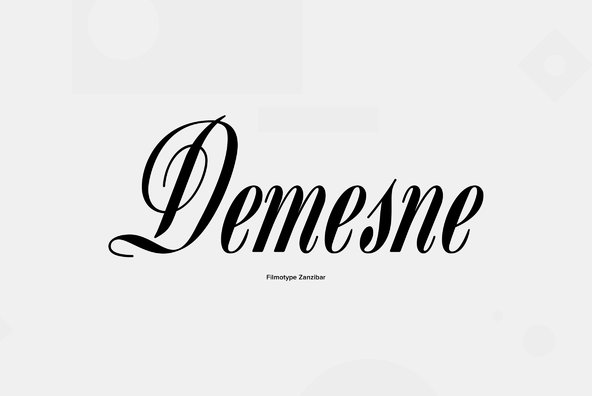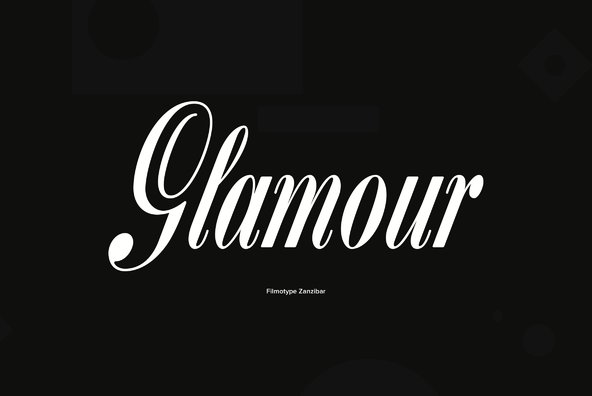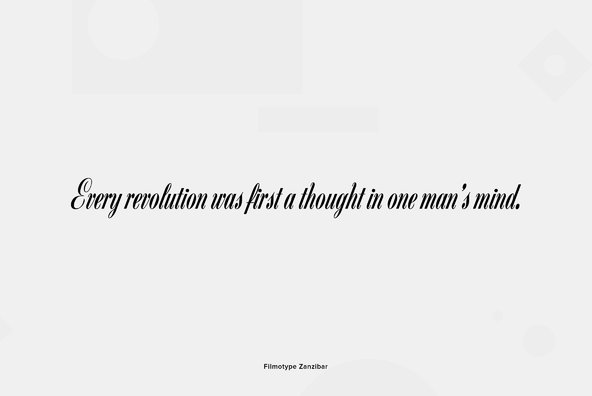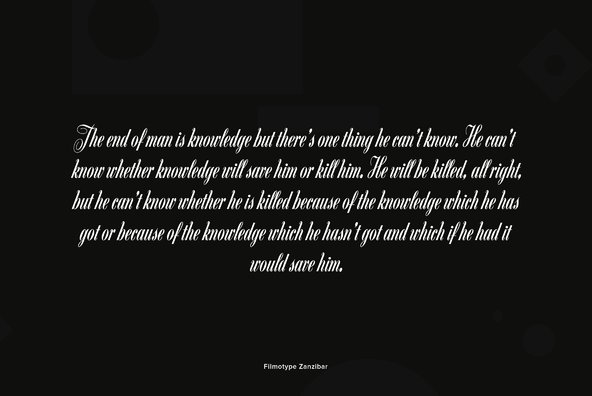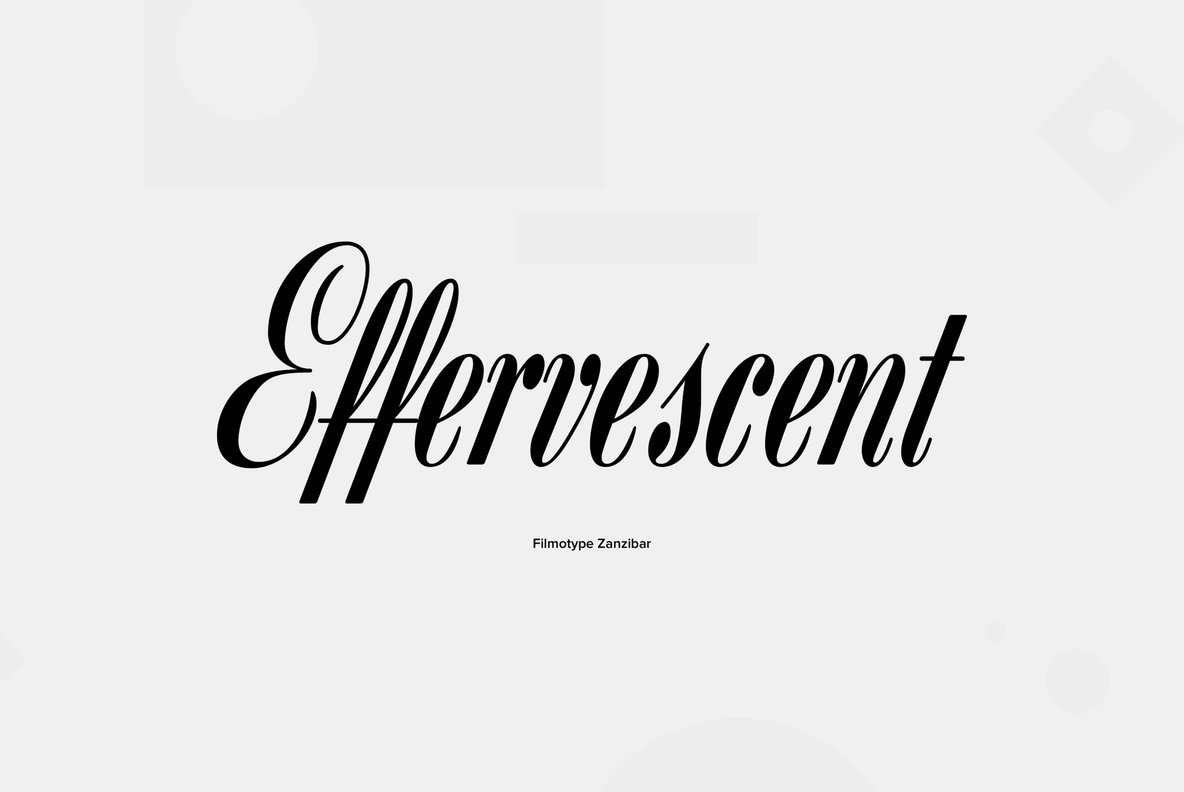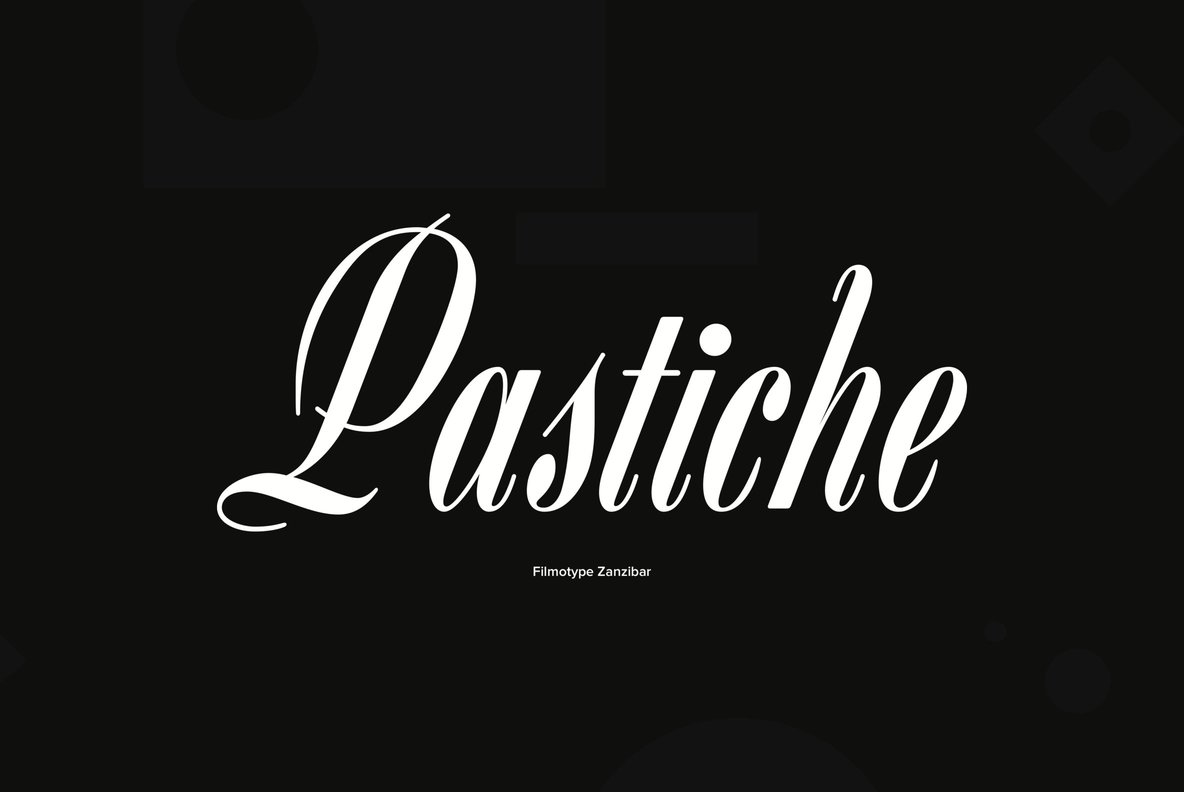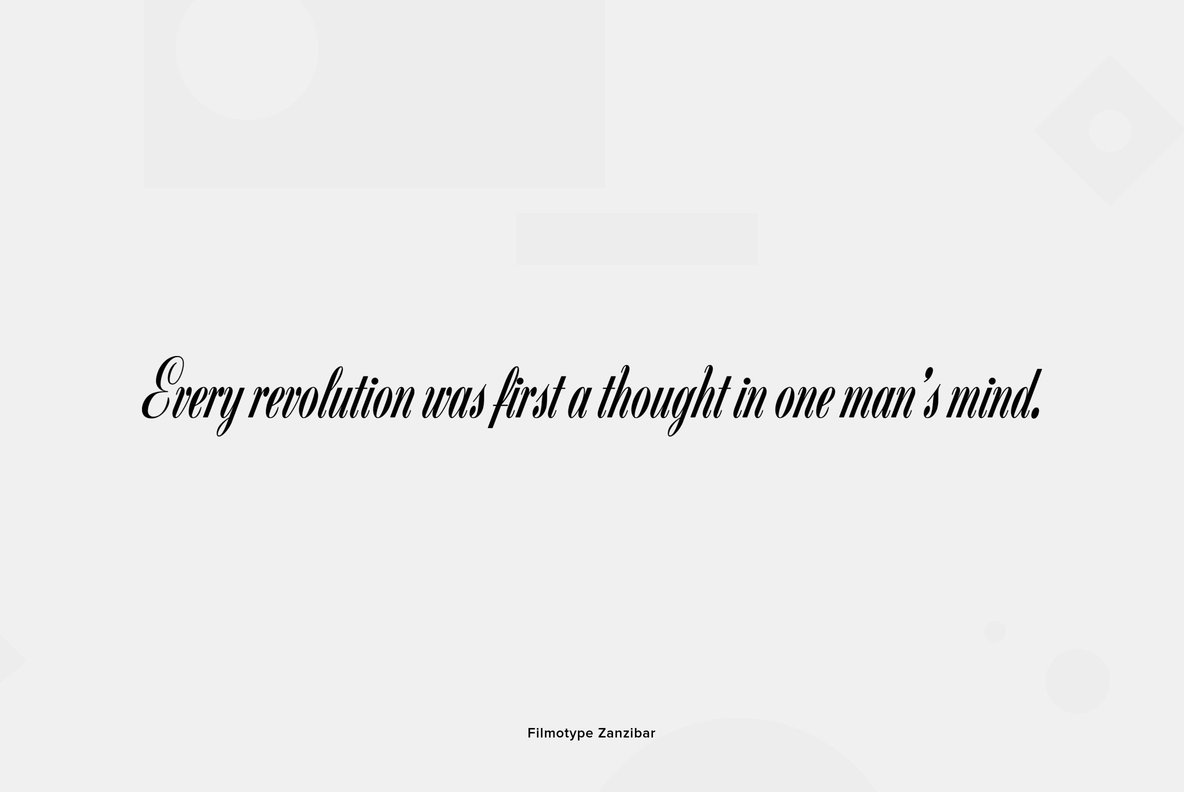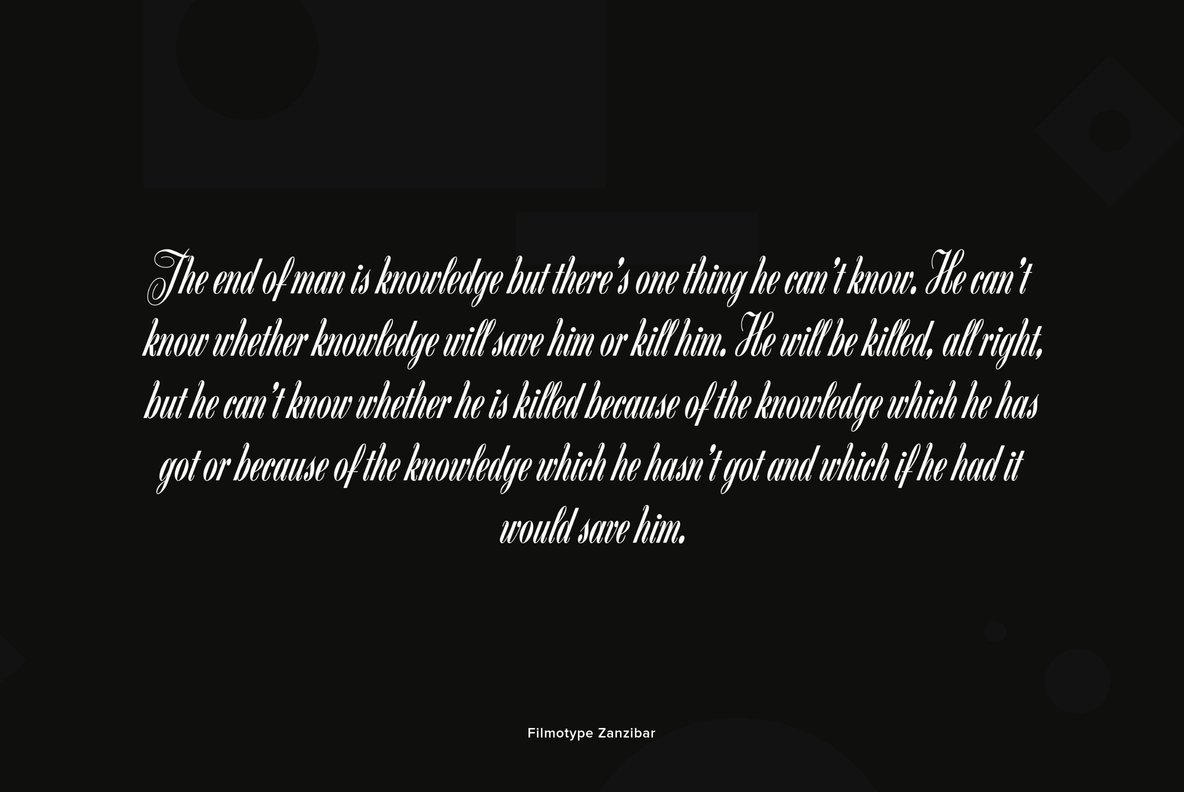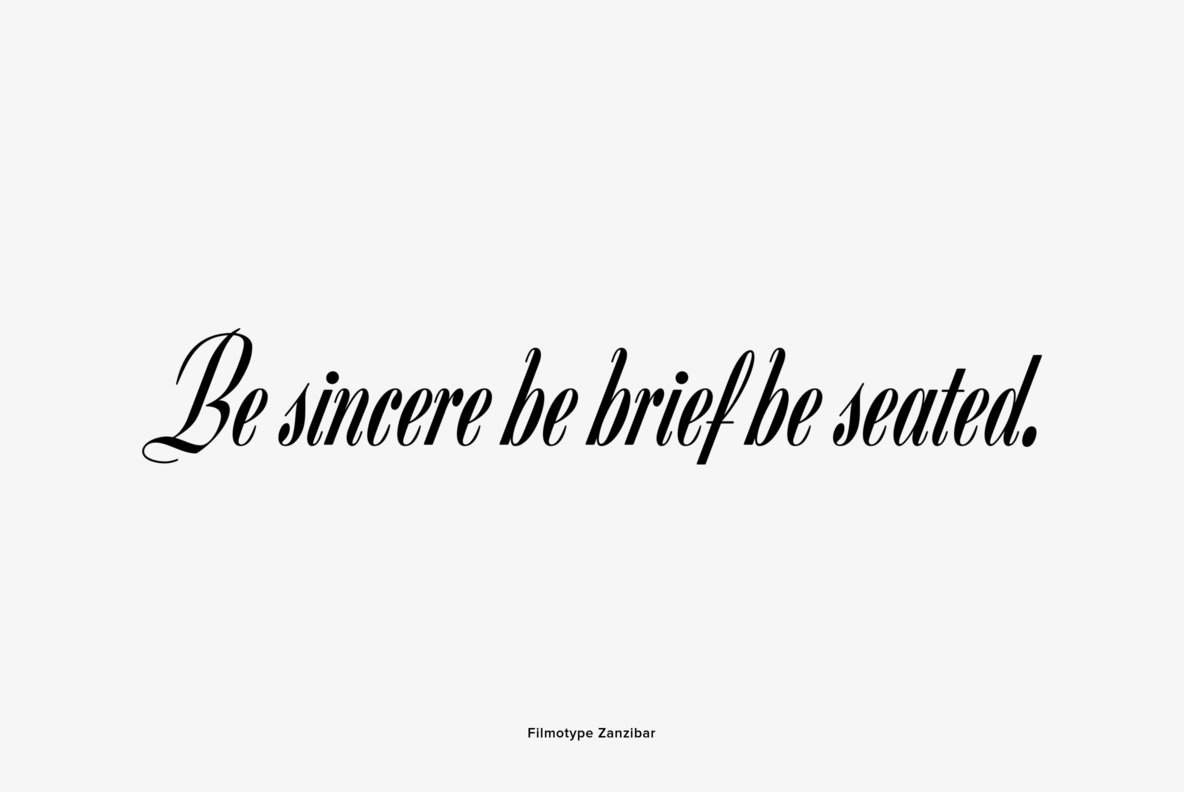
Filmotype Zanzibar
Strikingly poised and almost as exotic as it sounds, Filmotype Zanzibar is among Filmotype’s most amazing and beautiful formal scripts released. This hidden gem from the early 1950s has been meticulously redrawn from the original font filmstrips and has been enhanced to include a full international character compliment, automatic fractionals, ordinals, and a host of alternate characters in dynamic OpenType format.